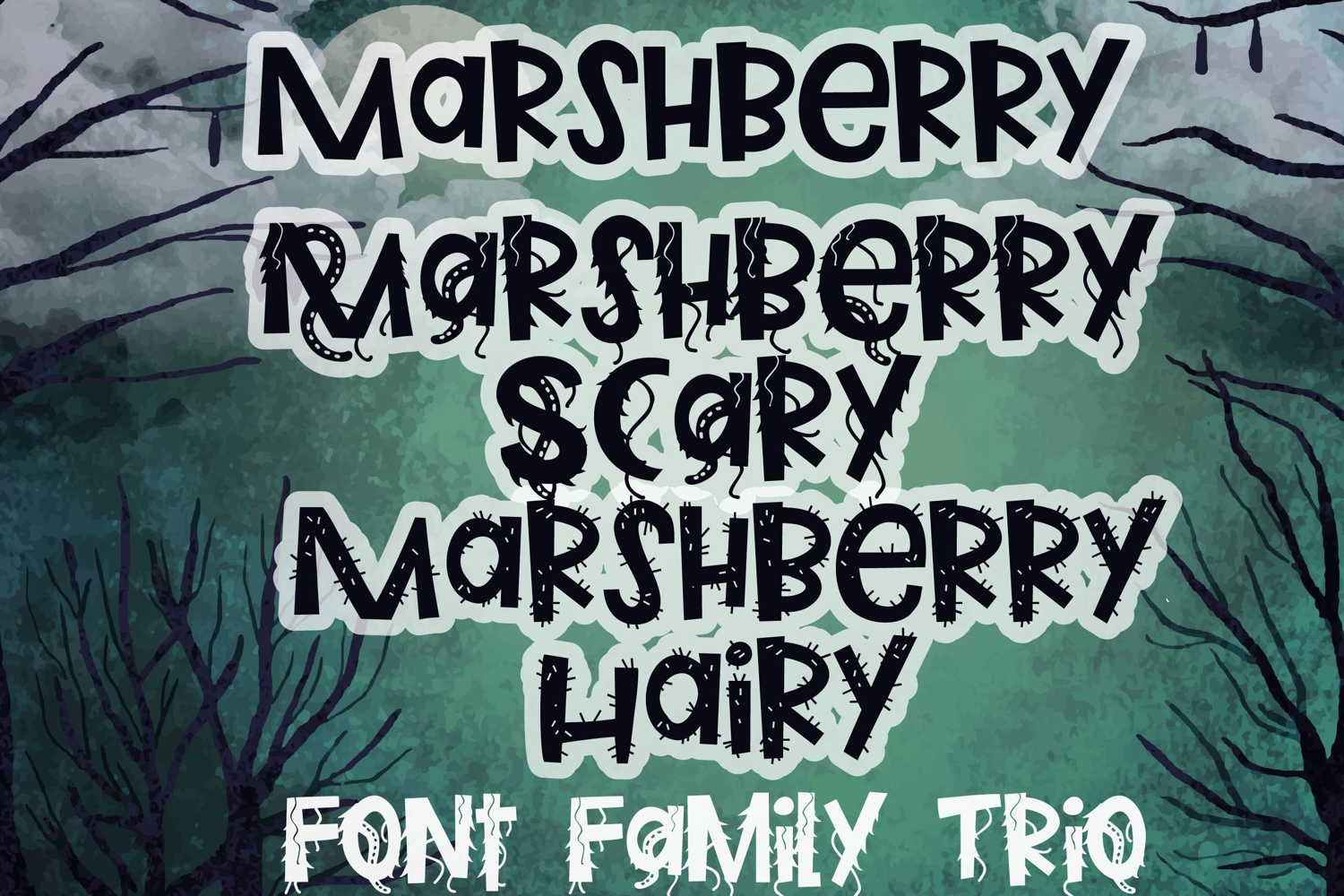
Marshberry Scary Font Trio
This hand-crafted font trio combines a creepy, scary print with monster tenacles, a second, hairy version and a plain version. With all family members combined, you get 12 fonts all together!
Hand-crafted fonts can be either formal or informal, and they can be used for a variety of purposes. Some of the characteristics of handwritten fonts include: The letters are not perfectly uniform in size or shape. There may be slight variations in the spacing between letters and words. The font may have a "wiggly" or "squiggly" appearance. The font may be difficult to read at small sizes. Handwritten fonts can be a great way to add a casual touch to your designs. They can also be used to create a sense of nostalgia or whimsy. However, it is important to choose a handwritten font that is appropriate for the project you are working on. A formal handwritten font may not be appropriate for a casual invitation, while an informal handwritten font may not be appropriate for a corporate document.
• The letters are not perfectly uniform in size or shape.
• There may be slight variations in the spacing between letters and words.
• The font may have a "wiggly" or "squiggly" appearance.
• The font may be difficult to read at small sizes.